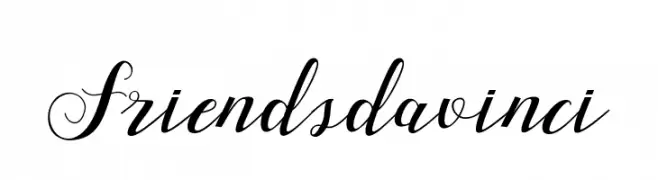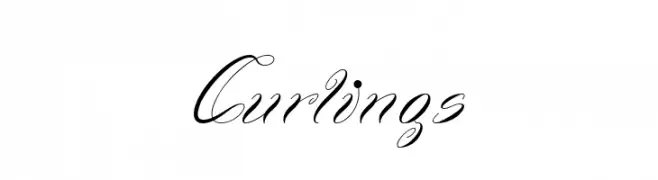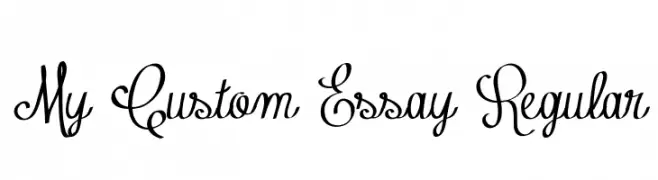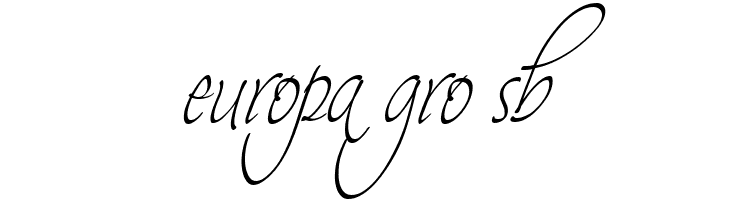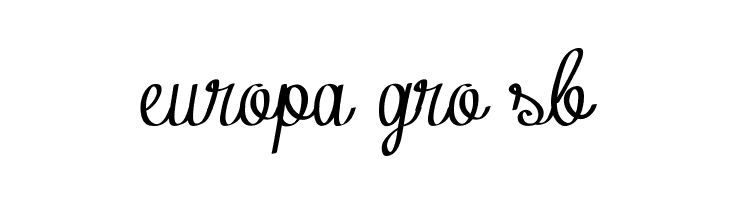
An elegant script font with flowing, cursive letterforms and a sophisticated appearance.
An ornate script font with intricate swirls and flourishes.
A sophisticated script font with elegant swashes and flowing cursive style.
An elegant script font with intricate swirls and high contrast, perfect for formal designs.
An elegant script font with flowing, ornate swashes and flourishes.
An elegant script font with intricate swashes and flourishes.
An elegant script font with intricate curls and flourishes.